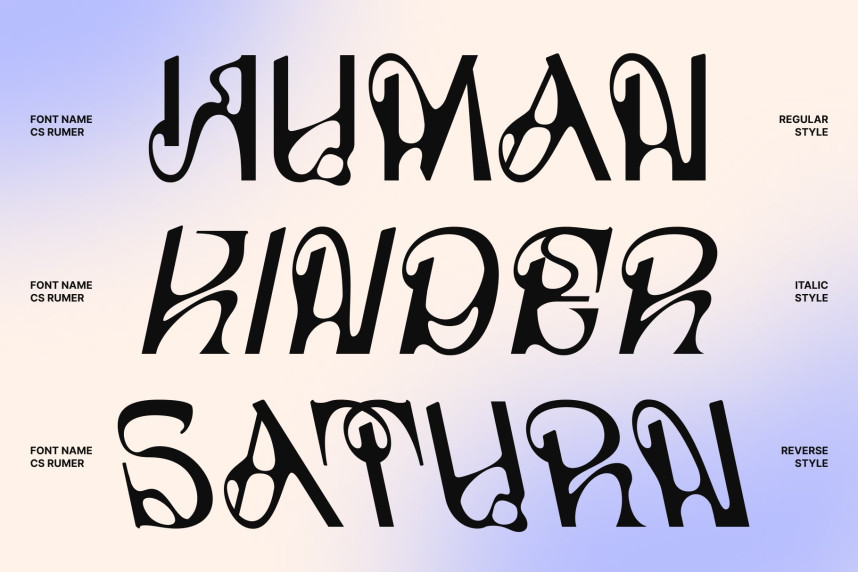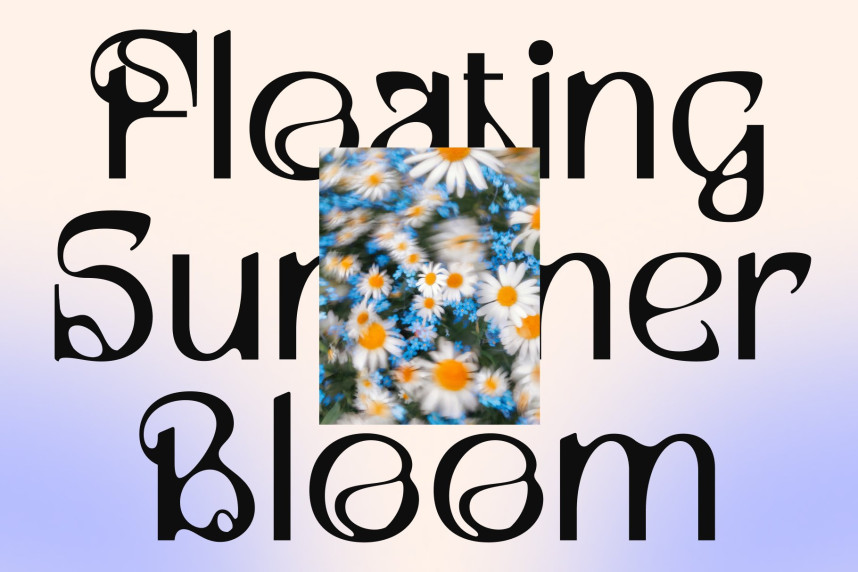
CS Rumer Font
CS Rumer Font – Melted Sans Serif with Fluid Elegance
Modern Sans Serif with Artistic Art Nouveau Influence
This is a stylish sans serif font that blends the graceful beauty of Art Nouveau with an innovative melted concept. Designed with flowing curves and organic movement, this typeface transforms traditional sans serif forms into an expressive visual statement. The result is a font that feels elegant, contemporary, and artistically distinctive, perfect for designers seeking a fresh approach to modern typography.